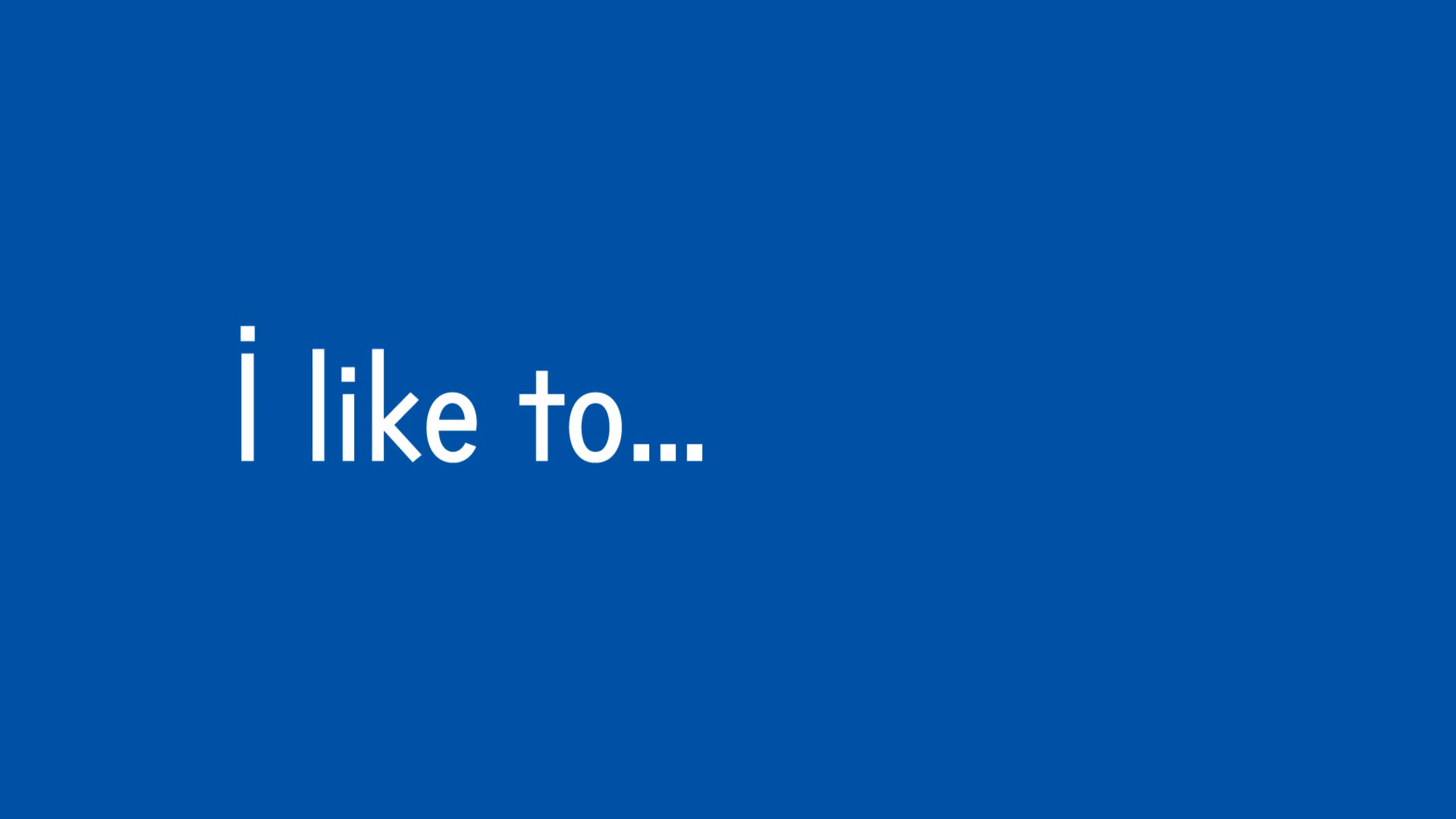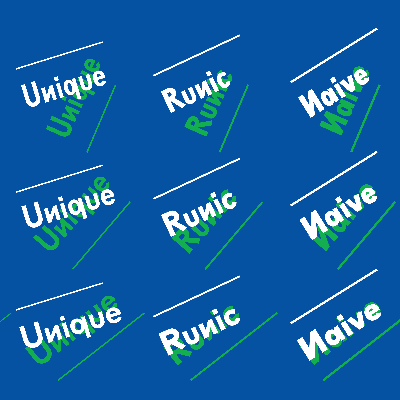
Sixten typeface
Display Typeface
Sixten is a versatile typeface inspired by the intuitive letter shapes of a four-year old child. The typeface questions writing rules, considering that they limit our natural instincts for creating letters at a young age. The project challenges our preconceptions of right and wrong when shaping the alphabet. There were interesting findings while designing, like the connection between the Phoenician and Early Greek alphabet. Sixten is a variable font and includes conventional and rebellious alternates. Forms of a child’s early handwriting have been shaped into a typeface without being childish.
Our goal was to shape the instinctive letters of a child into typographic patterns and create a fun typeface with letterforms beyond the obvious. Our inspirational source was writing letters backwards which made us curious on why and why not? So mirrored letters are a part of Sixten, we also brought in ‘flying small caps’, which align with the uppercase height instead the baseline and created what we call ‘flag caps’ that have one stem touching the baseline. The type family also changes features from Narrow to Wide, affecting not only the width but also the skeleton of the letters.